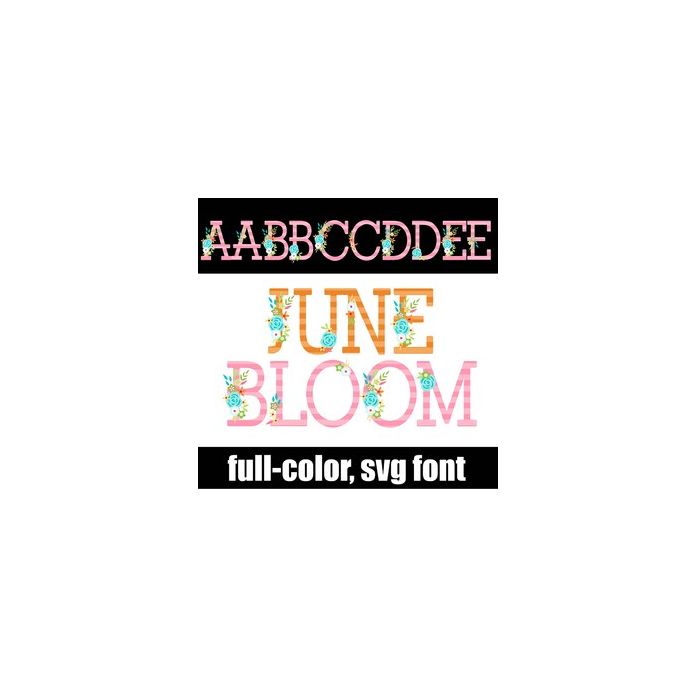
This full-color font features stripes, flowers and a summer color palette. There is an alt case w/ additional colors you can access through your system or Silhouette's glyph map.